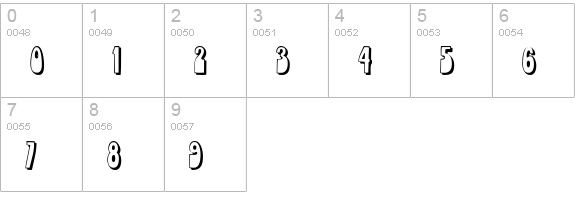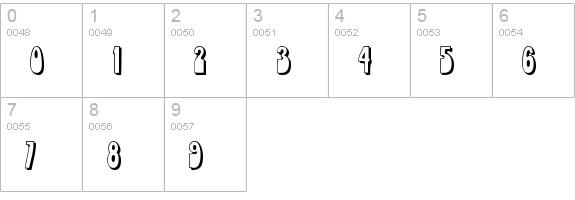
LopplerDisplay Font Details
Introducing LopplerDisplay font - a modern and stylish typeface that effortlessly blends elegance with readability. Perfect for a wide range of design projects, from branding to editorial layouts, this font exudes sophistication and charm. LopplerDisplay is designed with precision and attention to detail, making it a versatile choice for both digital and print applications. What sets LopplerDisplay font apart is not just its sleek design, but also the fact that it is available for free download at FontsMarket.com. Yes, you read that right - you can elevate your projects with this stunning font without spending a dime. Don't miss out on the opportunity to add LopplerDisplay to your font collection and bring your creative visions to life with ease.